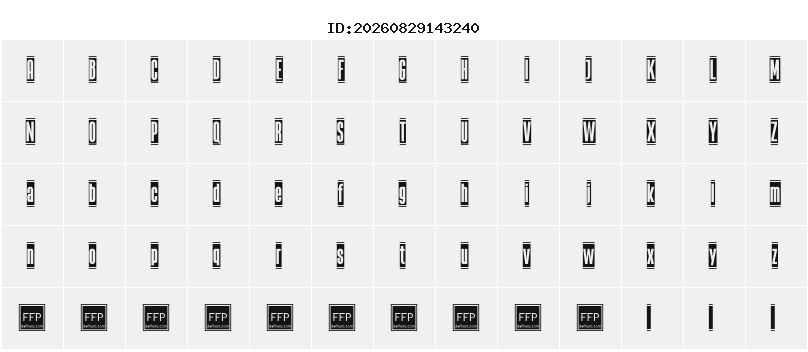
• Font Name: The Black Box
• Designer: Fernando Haro
• Manufacturer: deFharo
• Description: The Black Box es una tipografia sans condensada en negativo rodeada de un marco tipo caja con bordes, contiene 26 juegos de cierres de caja con estilo vintage. Estos cierres dan lugar a 676 combinaciones posibles para crear muchos retro banners & ribbons.
The Black Box.otf is a modern, elegant sans-serif font designed for ultimate readability and visual harmony. Perfect for branding, headlines, web design, and print materials.